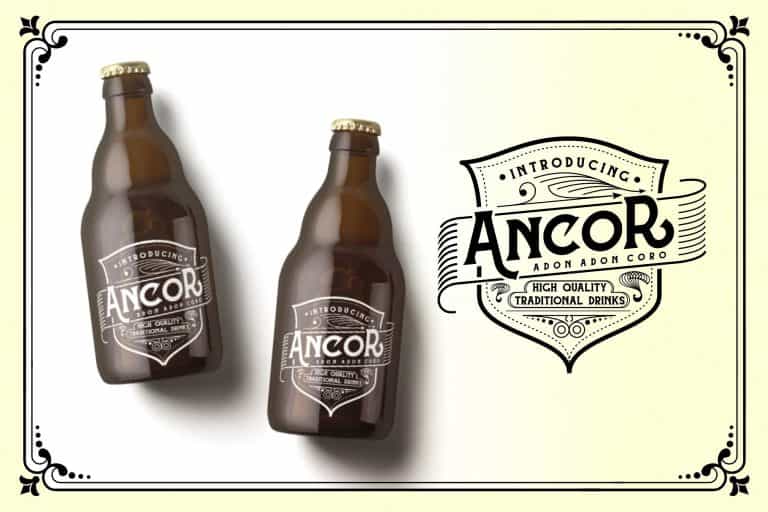
Introducing CHERYL Font! CHERYL Has an artistic style, is elegant to enjoy and has classic nuances and unique unique styles to be combined with each other, CHERYL Offers two font variations, namely Regular and Rough, there are 28 bonuses and many font alternatives to make You make it easy to design, for example: labels, logos, badges, posters, clothes and other typographic designs are some of the things that can be made with typography.